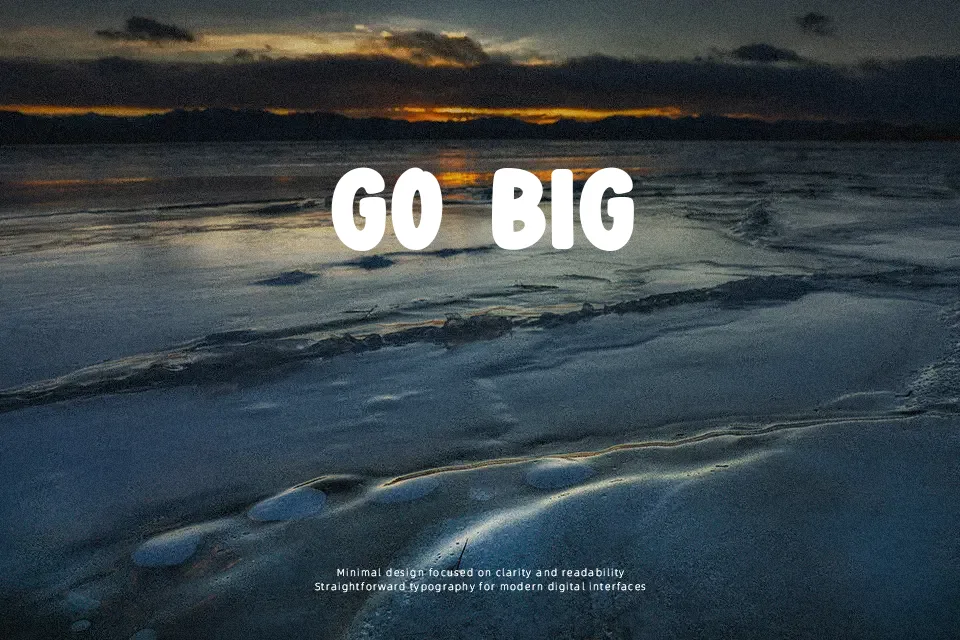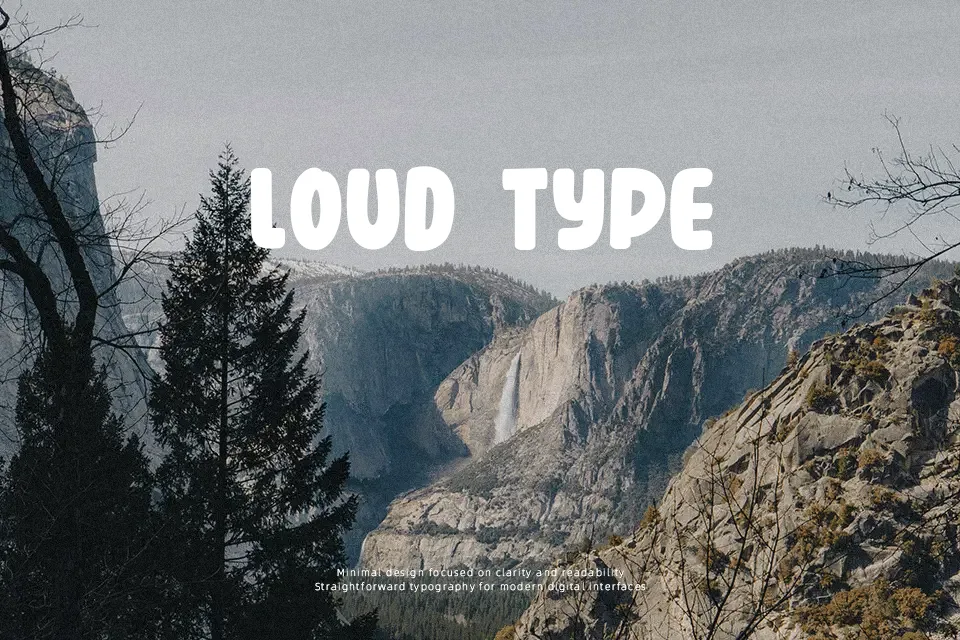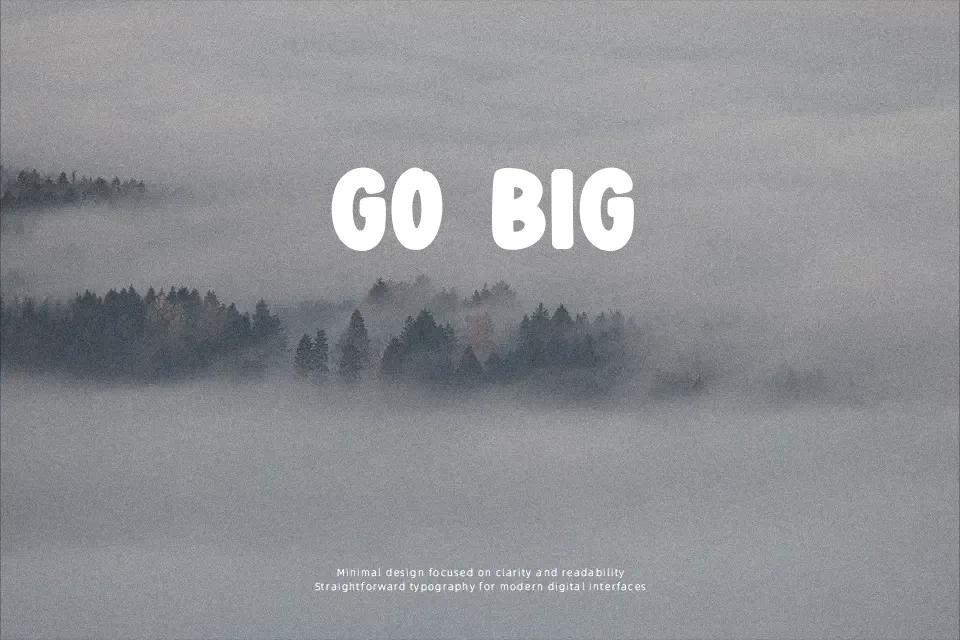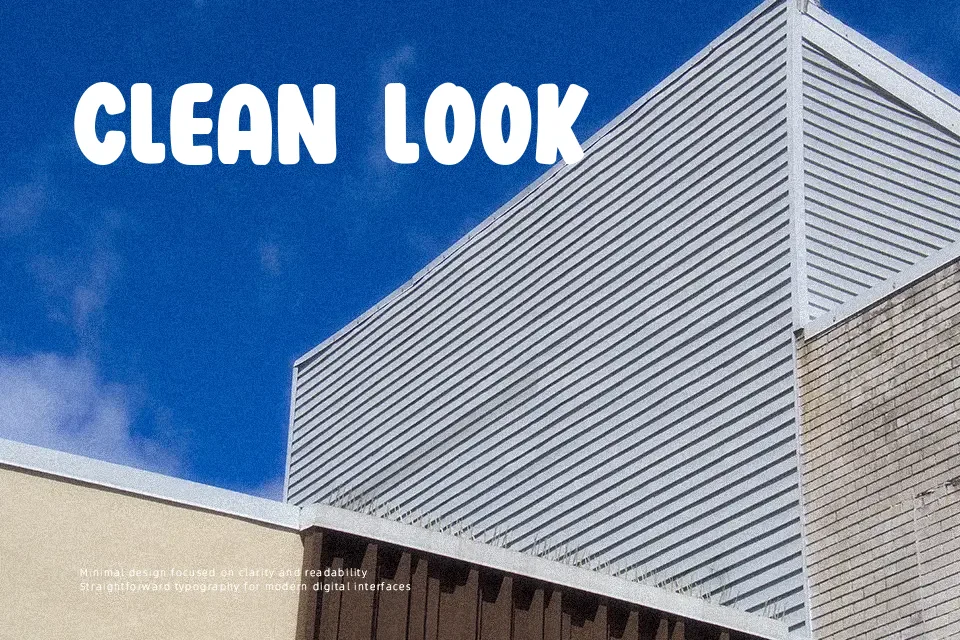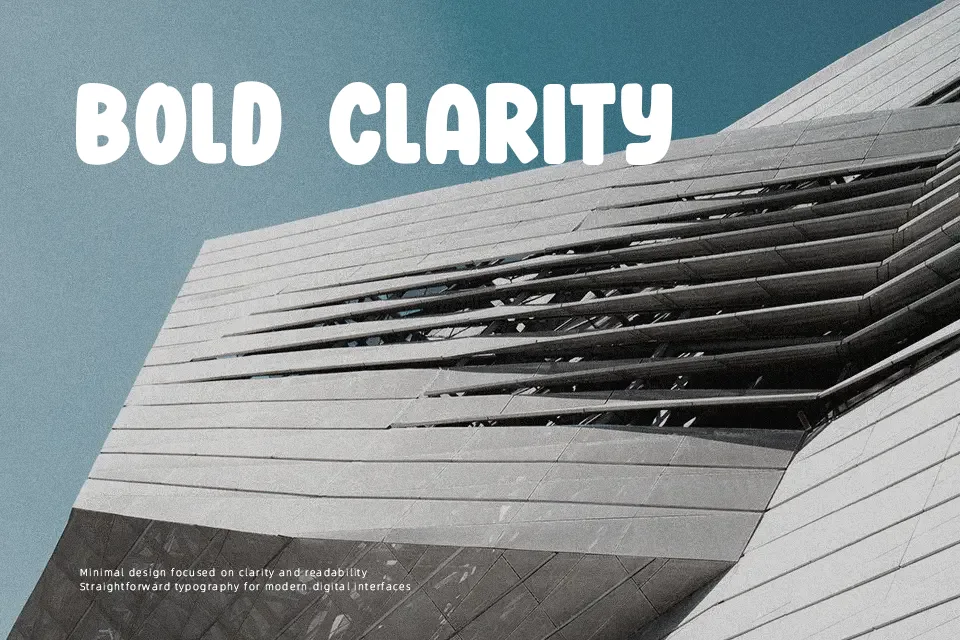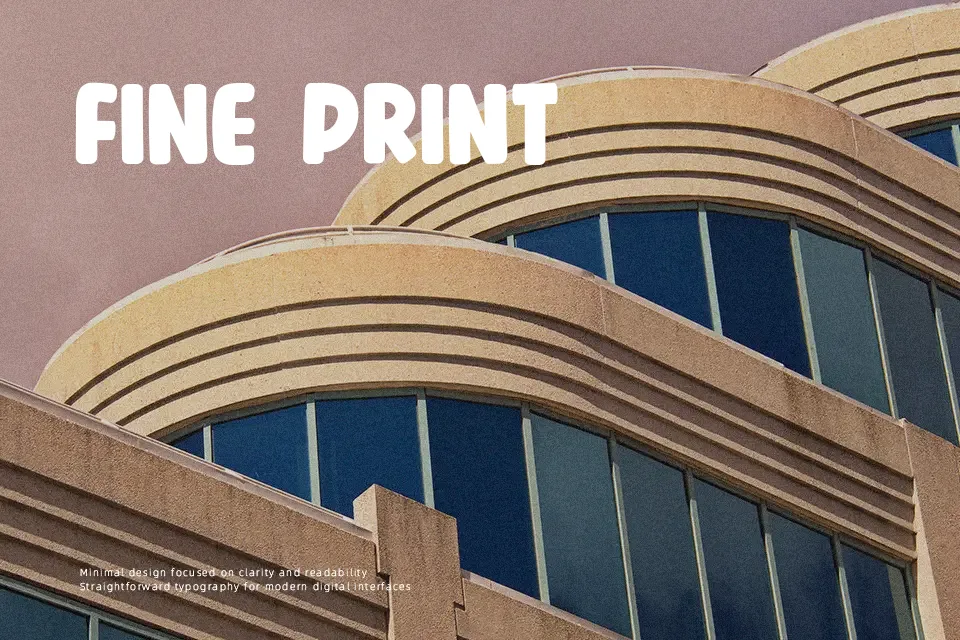
Peach Days Font
Peach Days Font uses thick, rounded strokes and soft, inflated letterforms to create a compact cartoon display style. The uppercase and lowercase characters keep a consistent, weighty appearance, while the broad curves and low-contrast construction give short words a solid silhouette. Spacing appears close but remains clear enough for large headlines and simple labels. Numerals and visible punctuation follow the same rounded, bold treatment. The font works best when its shapes have room to be seen; its dense forms and heavy weight make extended paragraphs or small captions less comfortable to read.
Best For: kids’ event posters,playful product packaging,cartoon social media graphics,short apparel graphics